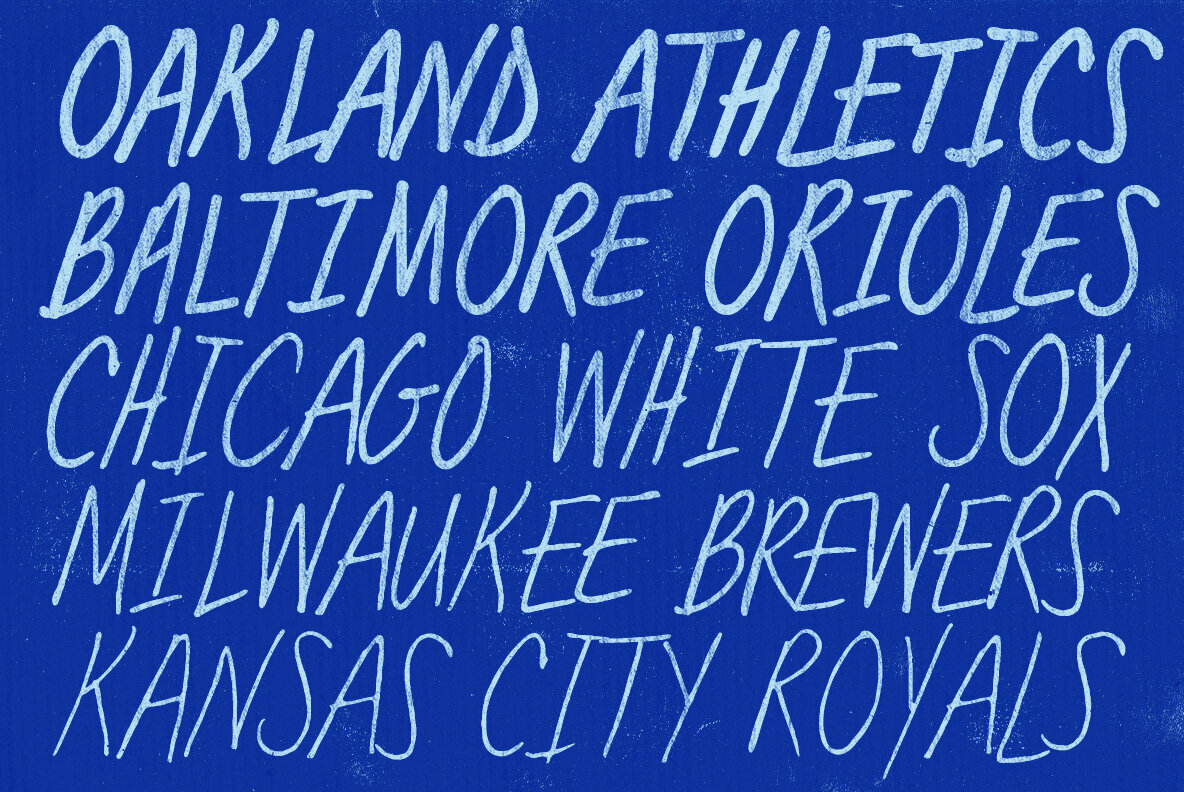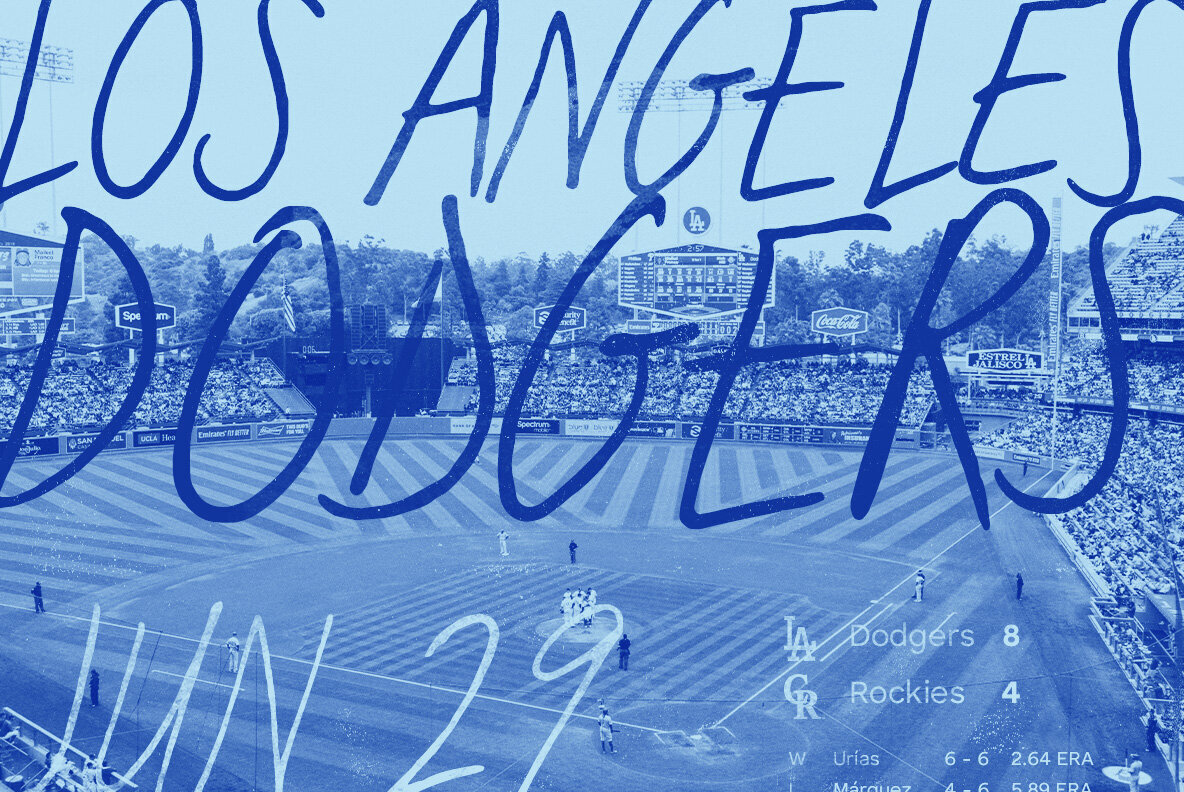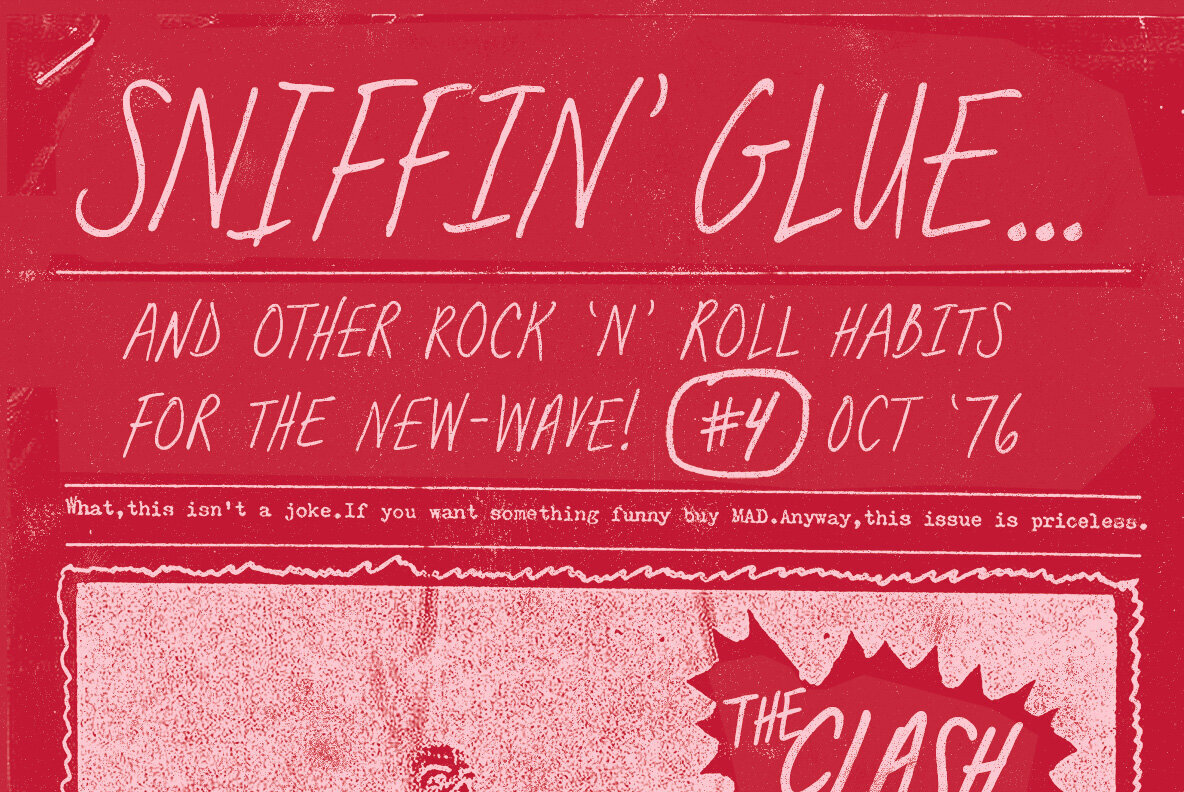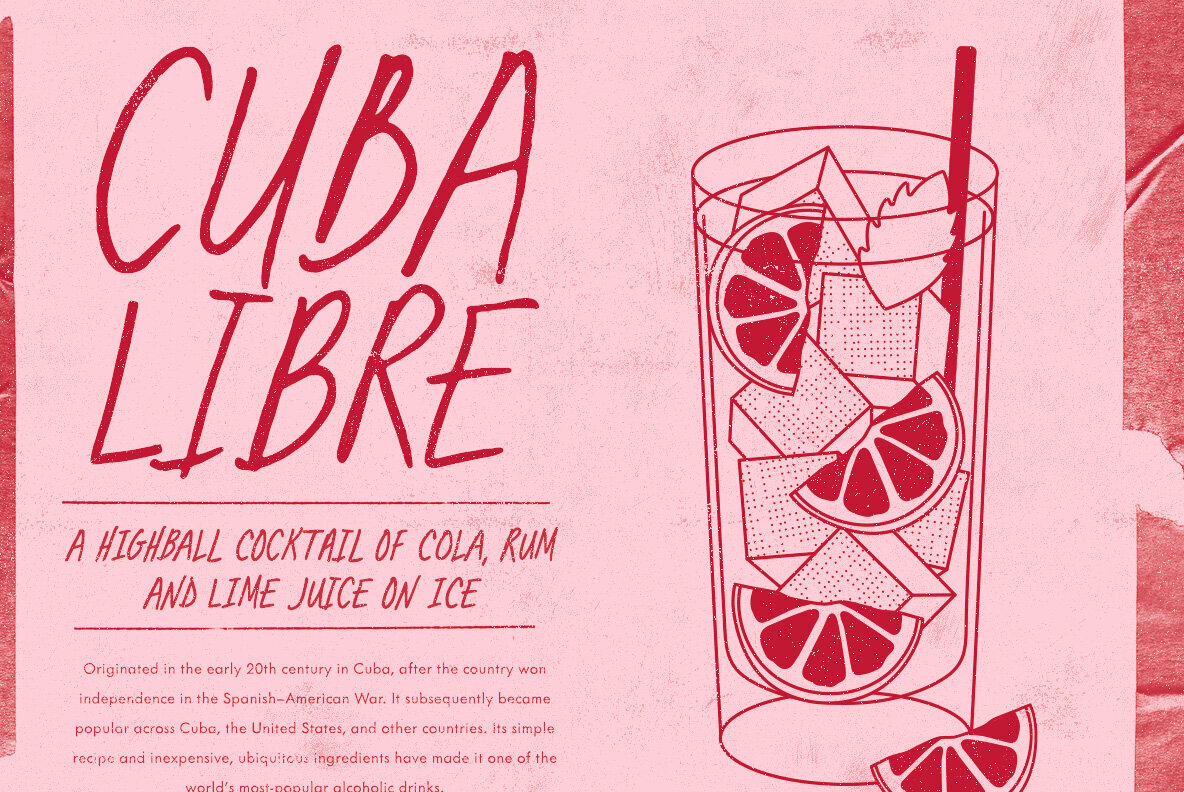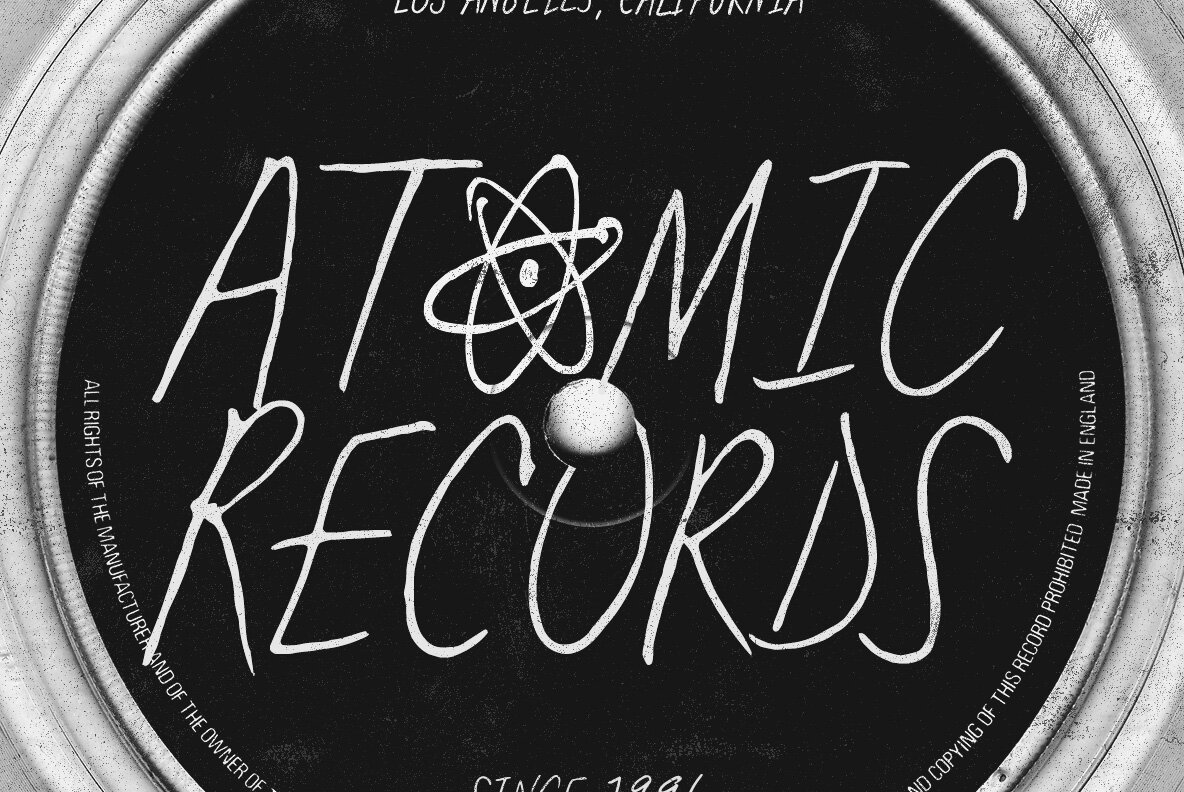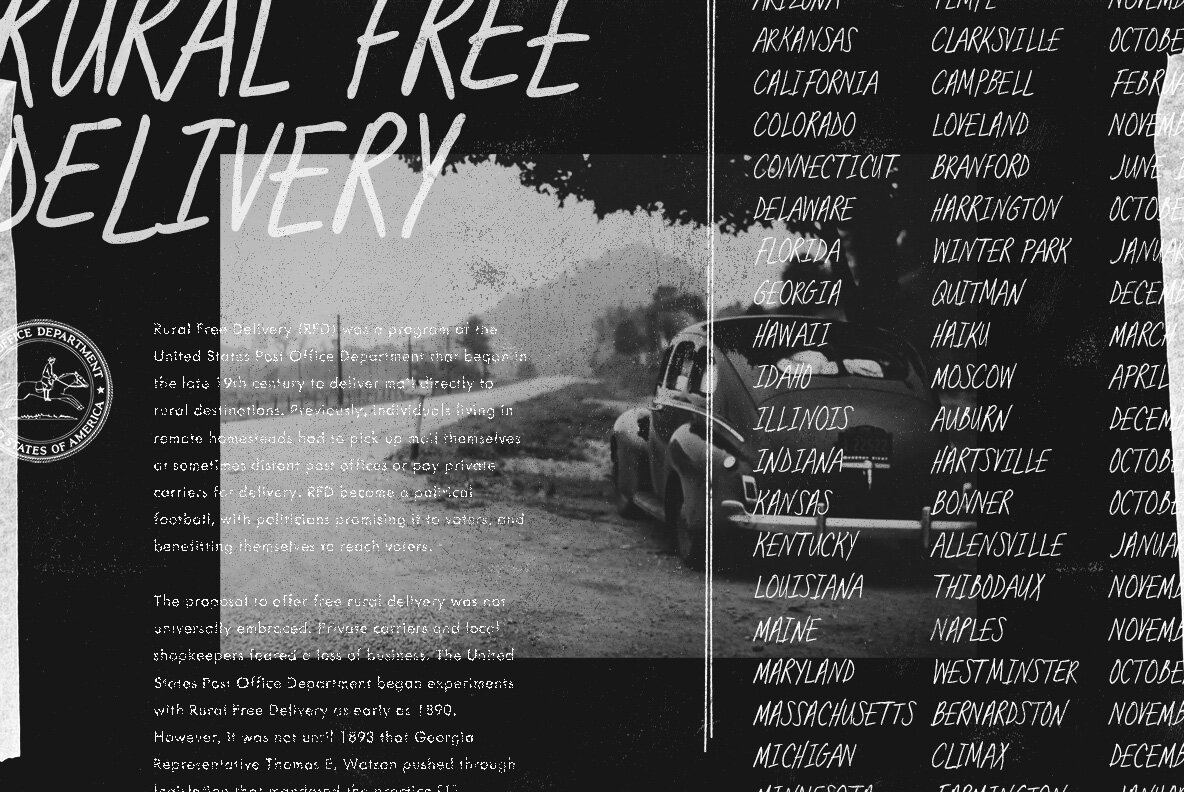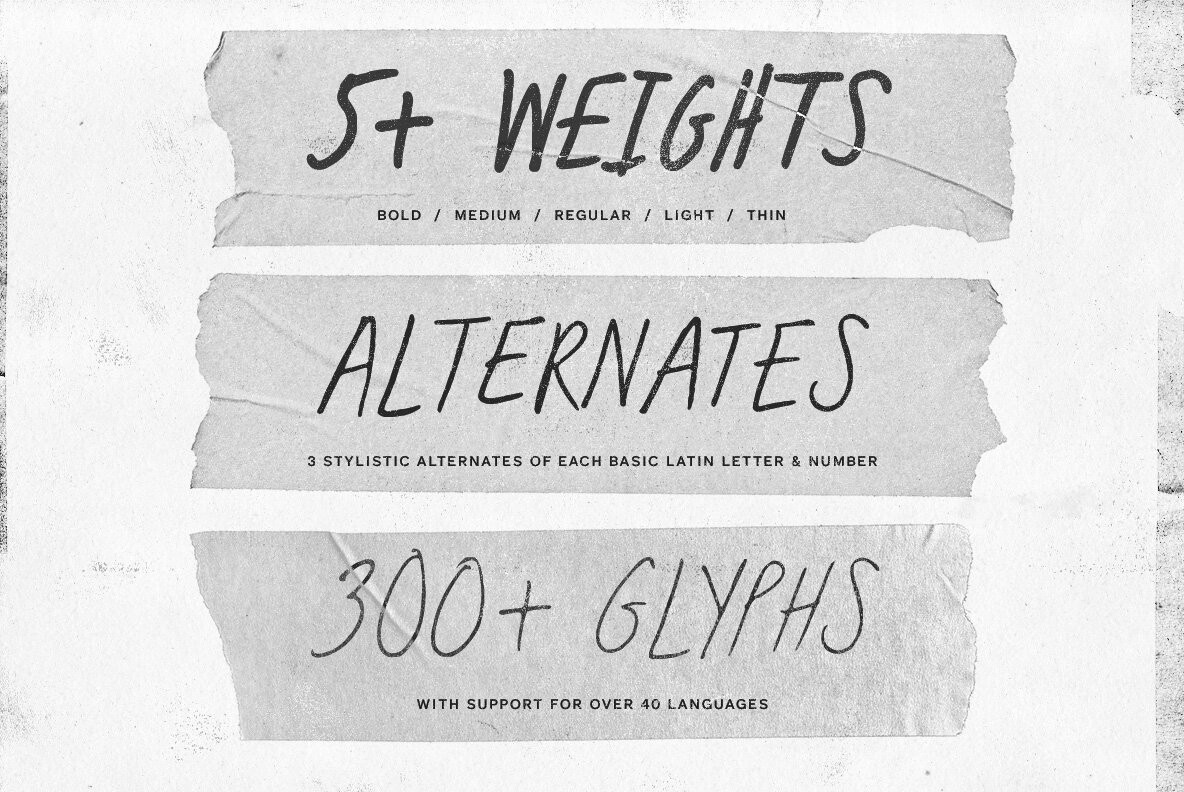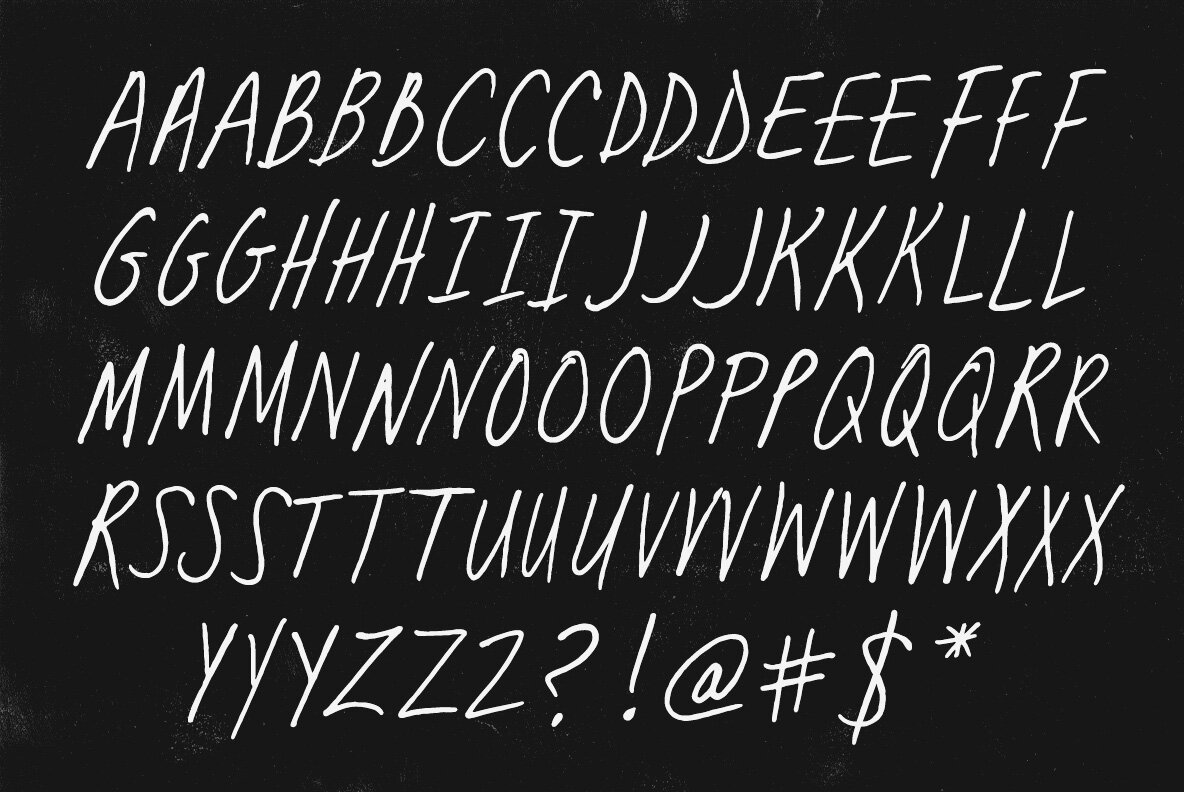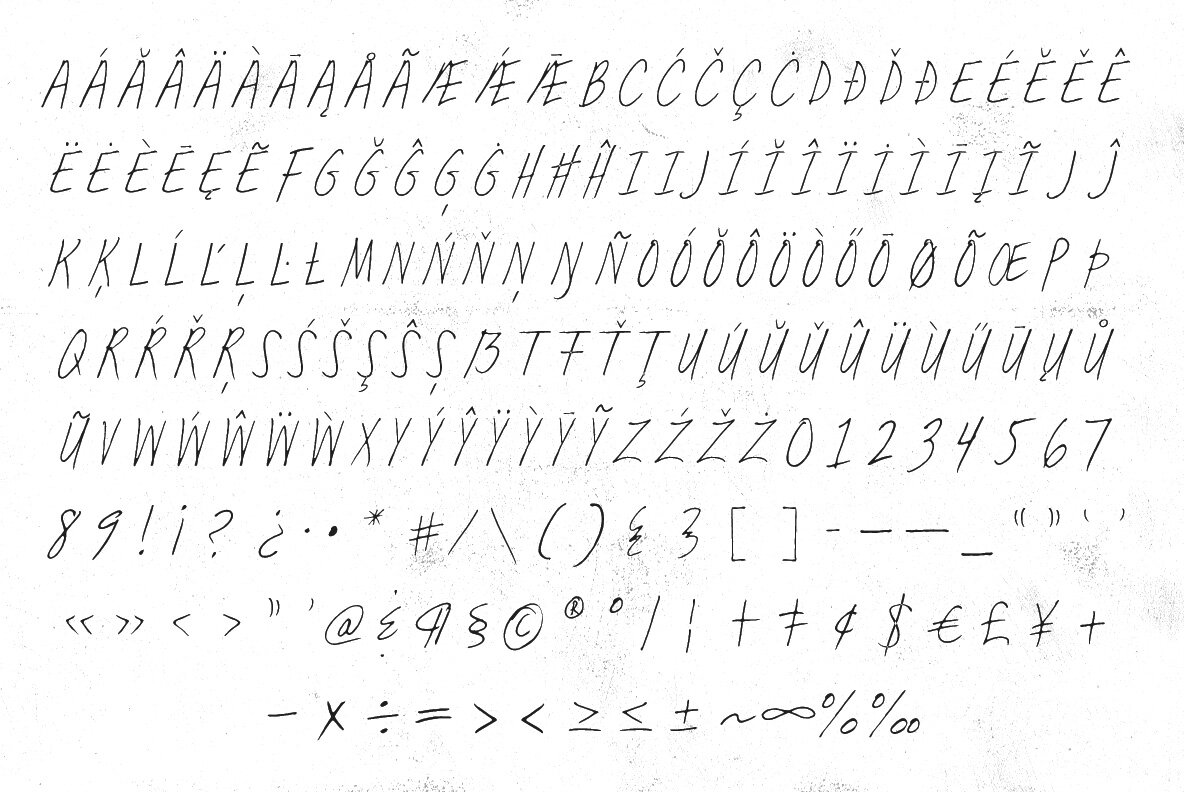
Margins is a hand-drawn scribbly display typeface perfect for headlines, handwritten quotes, or adding a textural touch to any project. It uses contextual alternates to feel organic, helping your text look hand-made and is available in variable weights to look great at any size. It includes accents and multilingual characters.